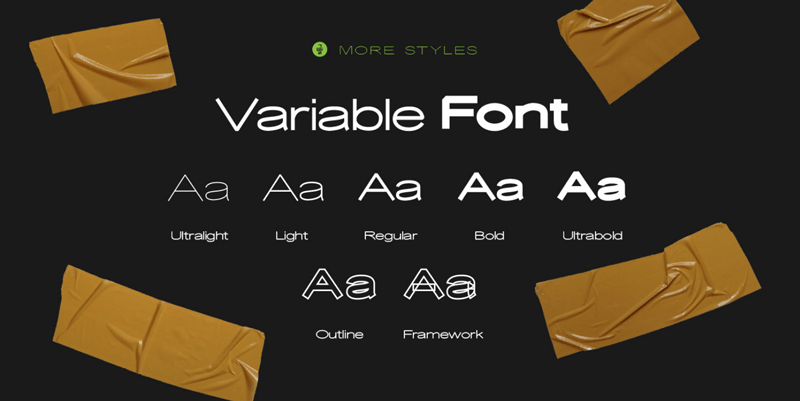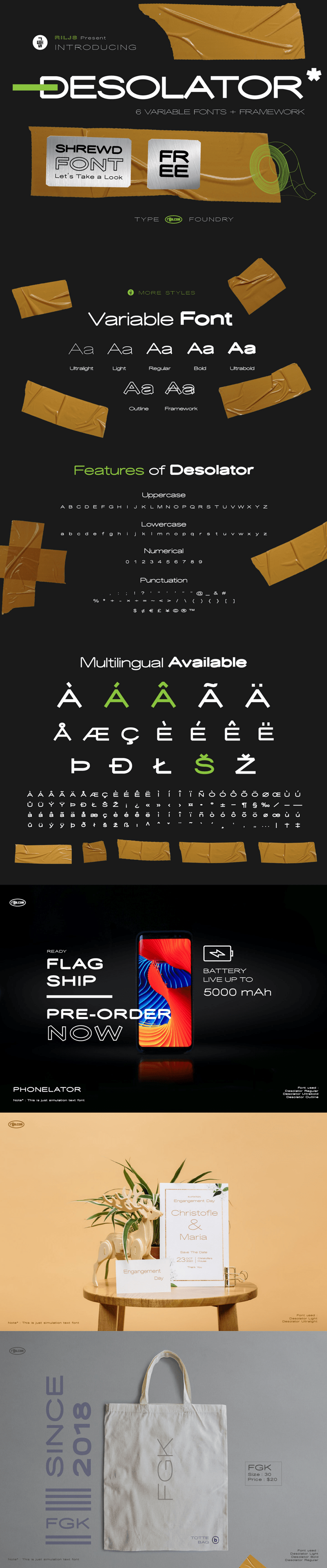
Multilingual Variable Font Family
Desolator Font Family is a narrow, all caps, futuristic sans serif font with a perfectly balanced mix of the smooth and sharp. It is free for personal, educational, non-profit, or charitable use. Find out more great variable fonts here.